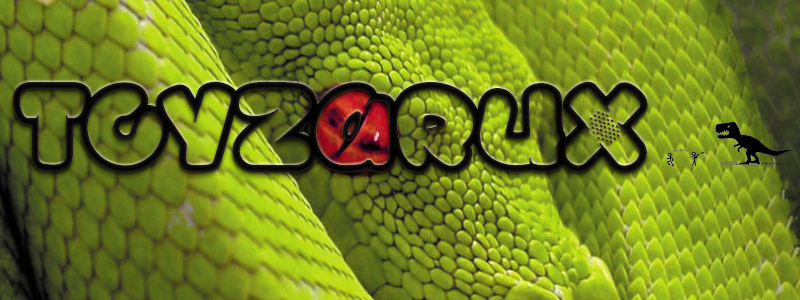
Toyzarux is a free outlined comic display font with oversized, balloon-like letters and a lively hand-drawn silhouette. Thick contours, soft corners, and uneven proportions make the alphabet feel rambunctious, with compact joins and occasional tilts adding motion.
Packaging is a natural home for its toy-box scale, especially on sweets, novelty products, and children's snacks. It also suits party posters, game graphics, and merchandise aimed at younger audiences. The lettering can become part of a cartoon illustration, echoing puffy clouds, stickers, or inflated props rather than acting as neutral text.
TOYZARUX